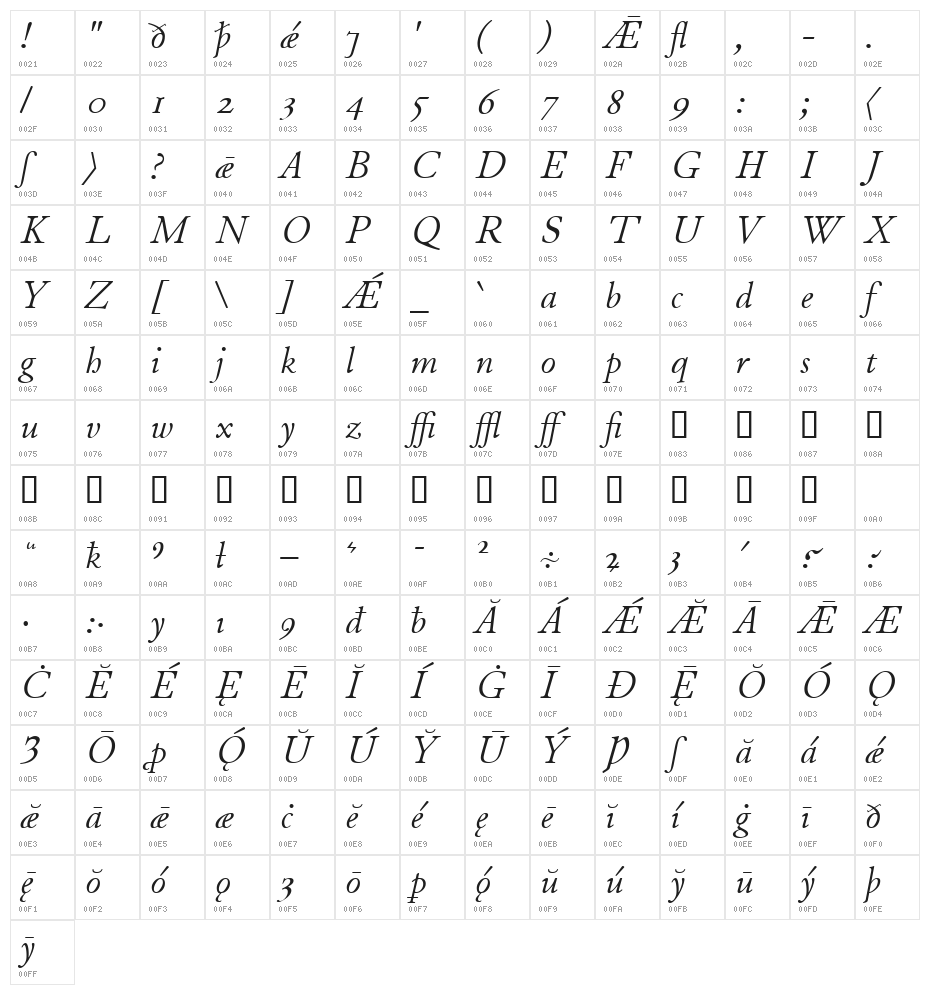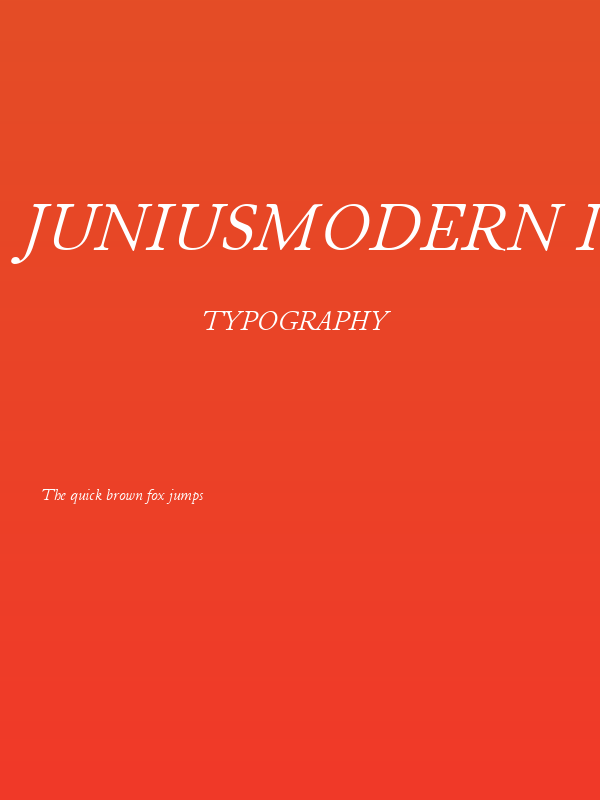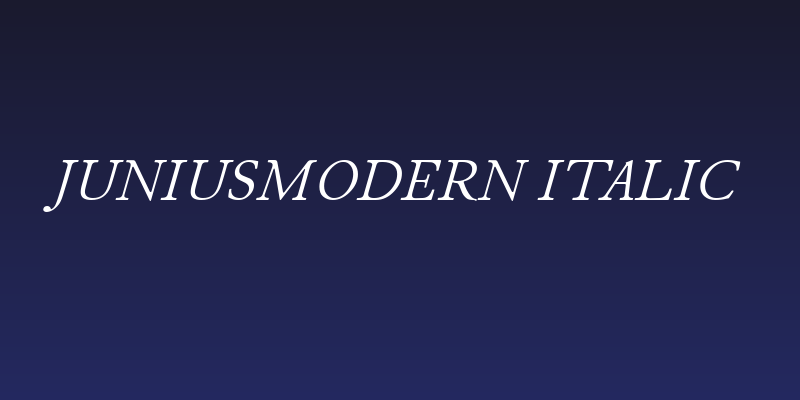
JuniusModern Italic Font
JuniusModern Italic Description
This font features an elegant and sophisticated italic style, characterized by its smooth, flowing lines and subtle curves. The uppercase letters are tall and slightly narrow, giving a refined appearance, while the lowercase letters maintain a consistent slant that enhances readability. The numerals are well-proportioned, aligning harmoniously with the alphabetic characters. Special characters are thoughtfully designed, maintaining the overall aesthetic of the font. The font's design is both classic and modern, making it versatile for various applications.
| Proposed Projects | Ideal for use in editorial design, luxury branding, wedding invitations, and elegant website headers. |